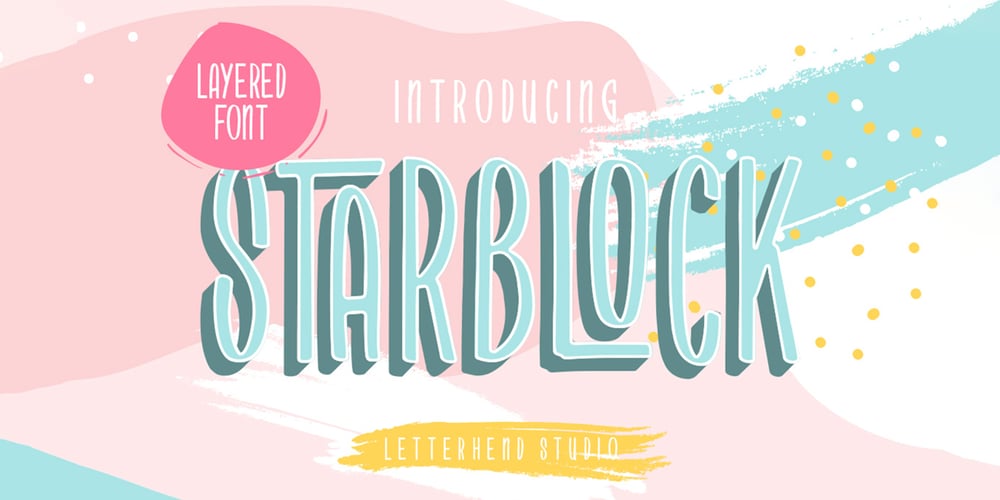
Starblock
Starblock font
Starblock Font Family was designed by Hendry Juanda and published by Letterhend. Starblock contains 3 styles and family package options. Introducing, Starblock is playful display. This font perfectly made to be applied especially in logo, and the other various formal forms such as invitations, labels, logos, magazines, books, greeting / wedding cards, packaging, fashion, make up, stationery, novels, labels or any type of advertising purpose.Features : uppercase & lowercase numbers and punctuation multilingual alternates PUA encoded We highly recommend using a program that supports OpenType features and Glyphs panels like many of Adobe apps and Corel Draw, so you can see and access all Glyph variations.